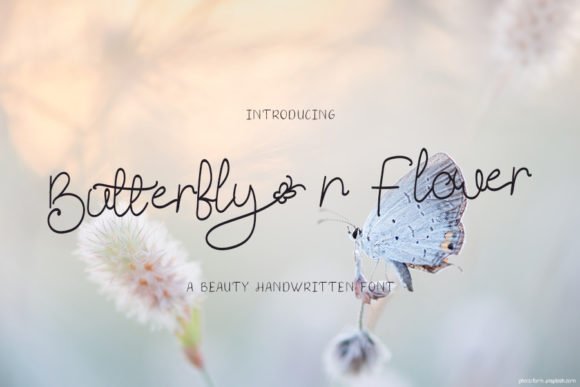
Enter the enchanting Butterfly N Flower Font – a delicate, elegant handwritten font that’s sure to cast a spell on your audience. With its sweet and dainty swashes, this font is perfect for adding a touch of whimsy to your crafty projects. From letterheads and titles to stationery, the possibilities are endless.
As a designer, you’ll appreciate the versatility and charm of the Butterfly N Flower Font. Its unique look is sure to elevate your designs and leave a lasting impression on your viewers. Whether you’re working on a personal or professional project, this font is a valuable addition to your toolkit.
Butterfly N Flower Font Key Features
- Font Family: Butterfly N Flower, a unique and elegant script font
- Character Set: Includes over 300 characters, including uppercase and lowercase letters, numbers, and punctuation marks
- Unique Characteristics: Features a beautiful, hand-painted style with intricate details and subtle flourishes, adding a touch of elegance and sophistication to any design
Butterfly N Flower Font Review
I’ve had the chance to work with the “Butterfly N Flower Font” and overall, it’s a lovely font that could add a touch of whimsy to your designs. ✨ The delicate, hand-drawn style of the font is perfect for creating a romantic or vintage feel. ✨ The bold and cursive flourishes add a playful touch that’s sure to catch the eye. ✨
- Feminine and whimsical style that’s perfect for wedding invitations, baby showers, or other feminine-themed designs
- Bold and cursive flourishes add a playful touch to text
- Delicate and hand-drawn style adds a touch of elegance to designs
⚠️ The font may be too ornate for some designs, making it difficult to read at smaller sizes or in certain color combinations
- Lack of versatility for more modern or minimalist designs
- May not be suitable for body text due to its ornate style
While the “Butterfly N Flower Font” is a lovely addition to any designer’s toolkit, it’s best suited for designs that require a touch of whimsy and romance. If you’re working on a design that needs to be modern, clean, or easy to read, you may want to consider a different font.
Use the Butterfly N Flower Font for:
- Baby shower invitations and decorations
- Floral-themed designs and packaging
Remember to adjust the font size and style to match the design and ensure readability.